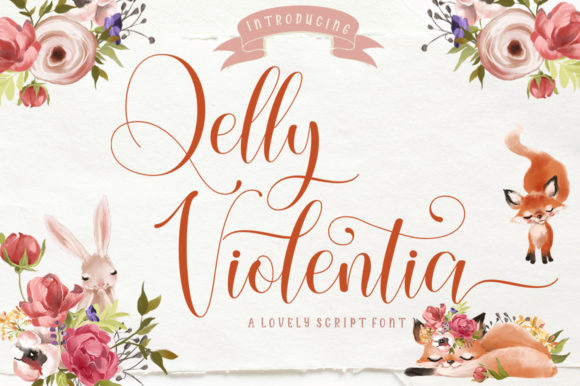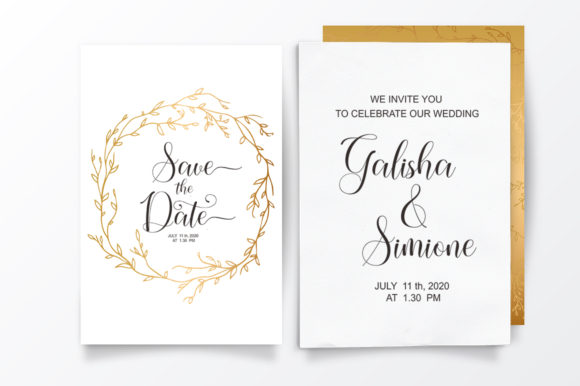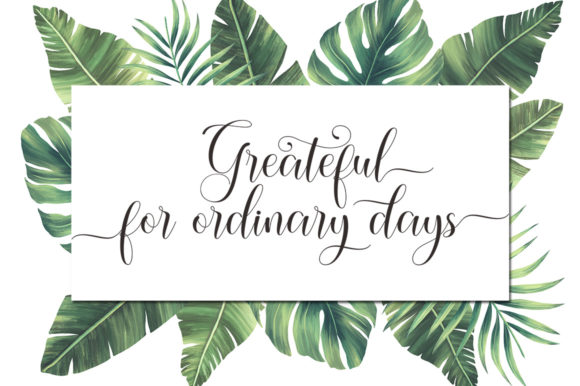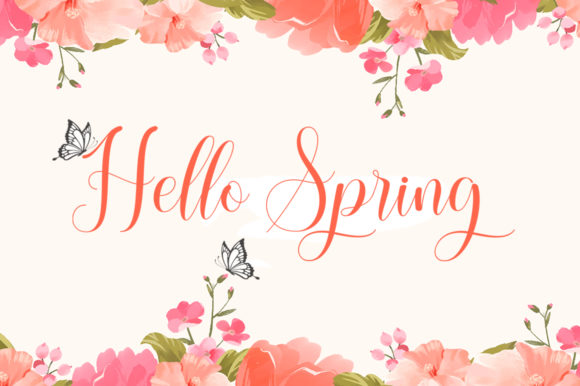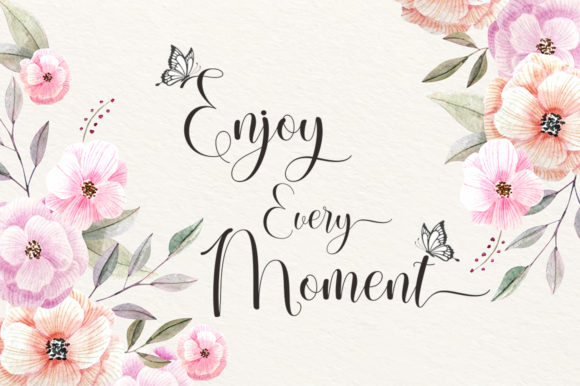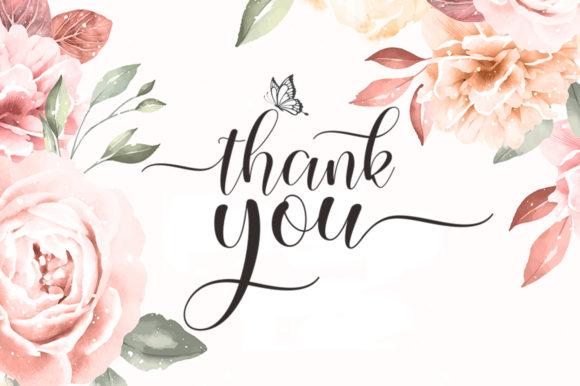
Qelly Violentia Font
About Qelly Violentia Font
Qelly Violentia Script is a new modern script font with an irregular baseline. Trendy and feminine style. Looks lovely on wedding invitations, thank you cards, quotes, greeting cards, logos, business cards and more.